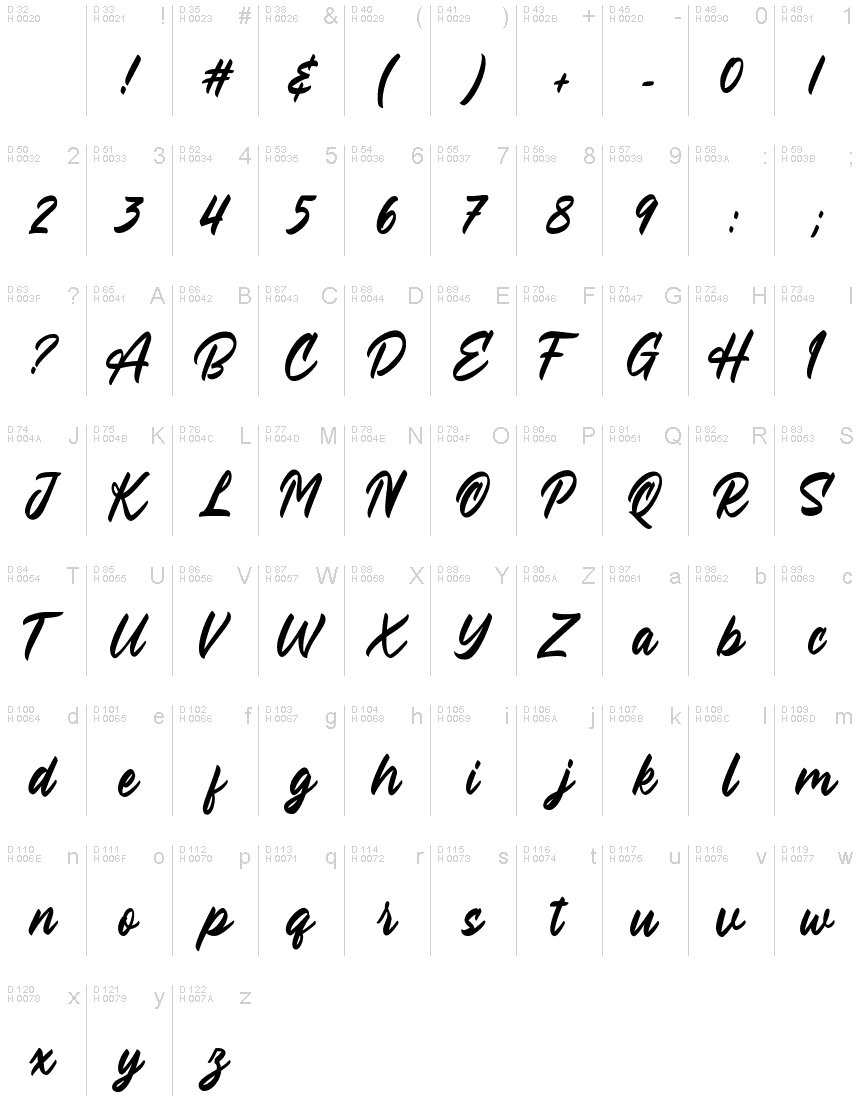
Gonzalles Regular
Gonzalles is a stunning brush font designed by Rian Rahardi that delivers a unique and artistic touch to any project. With its elegant thin strokes and bold flourishes, Gonzalles effortlessly captures the essence of handwritten calligraphy in a digital form. This semi-bold font is perfect for creating stylish logos, invitations, posters, and branding materials that require a touch of sophistication. Its versatility also makes it an excellent choice for greeting cards, packaging designs, book covers, and social media graphics. Whether you're designing for print or digital media, Gonzalles is sure to impress with its beauty and grace.